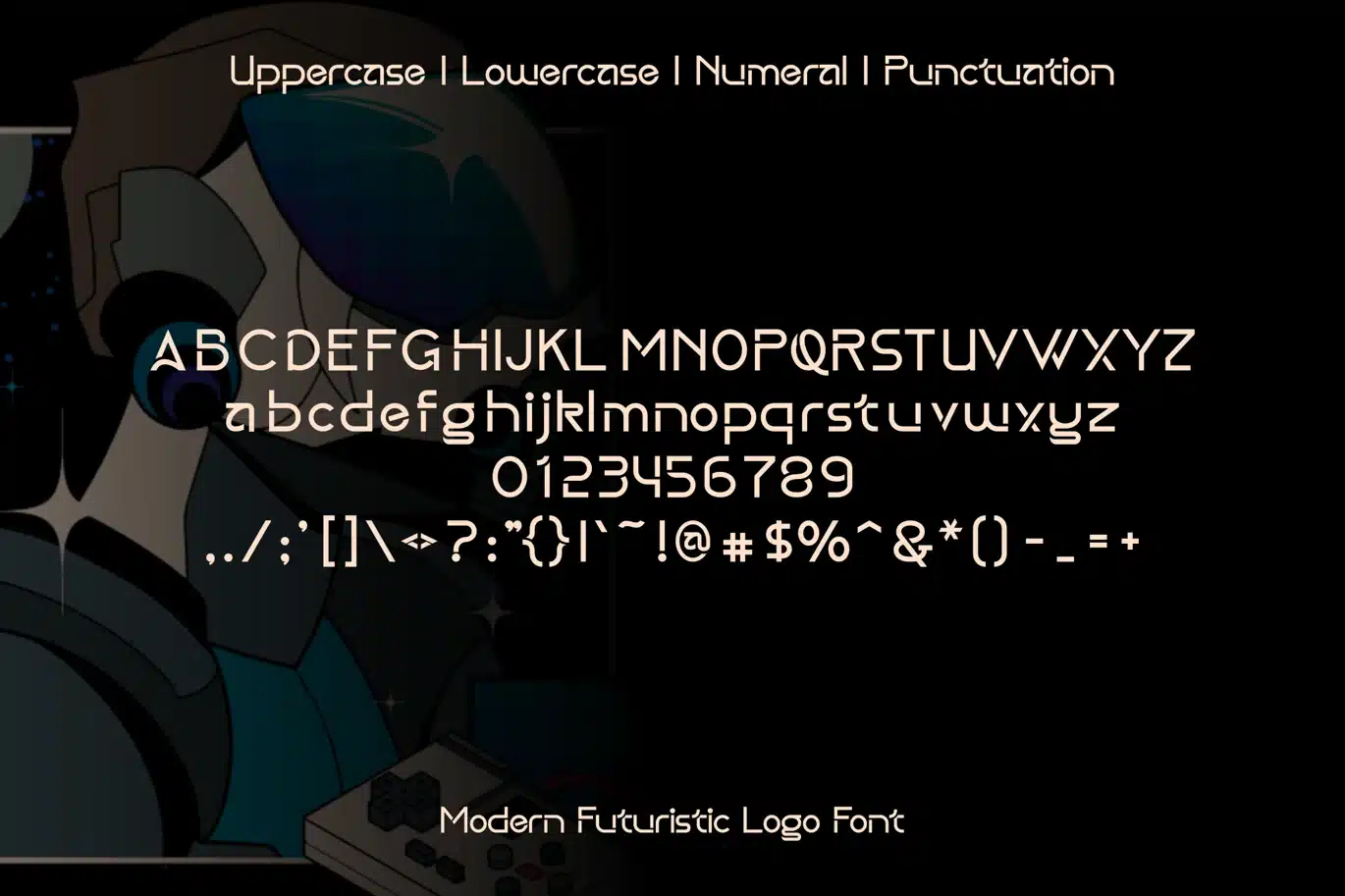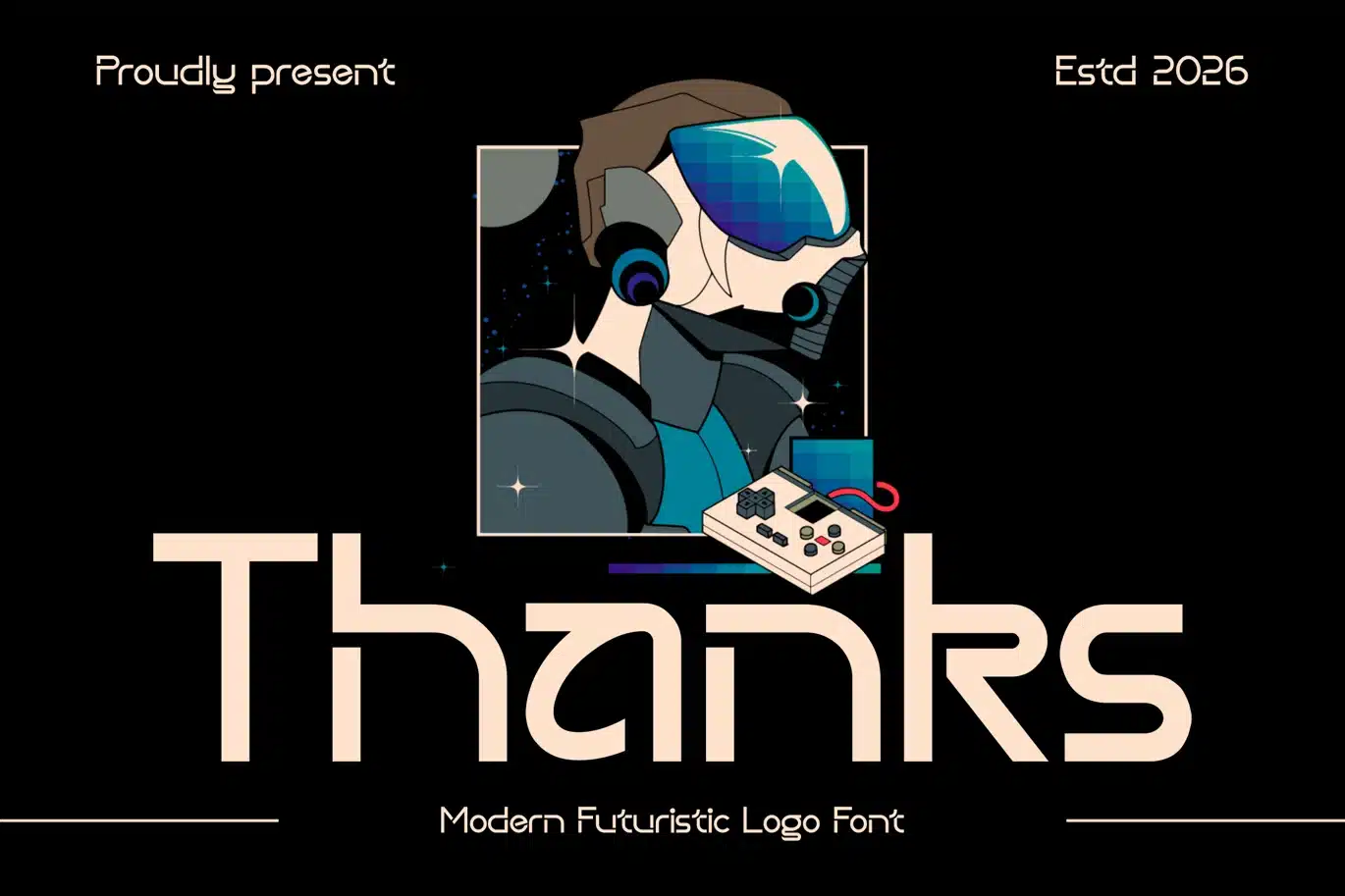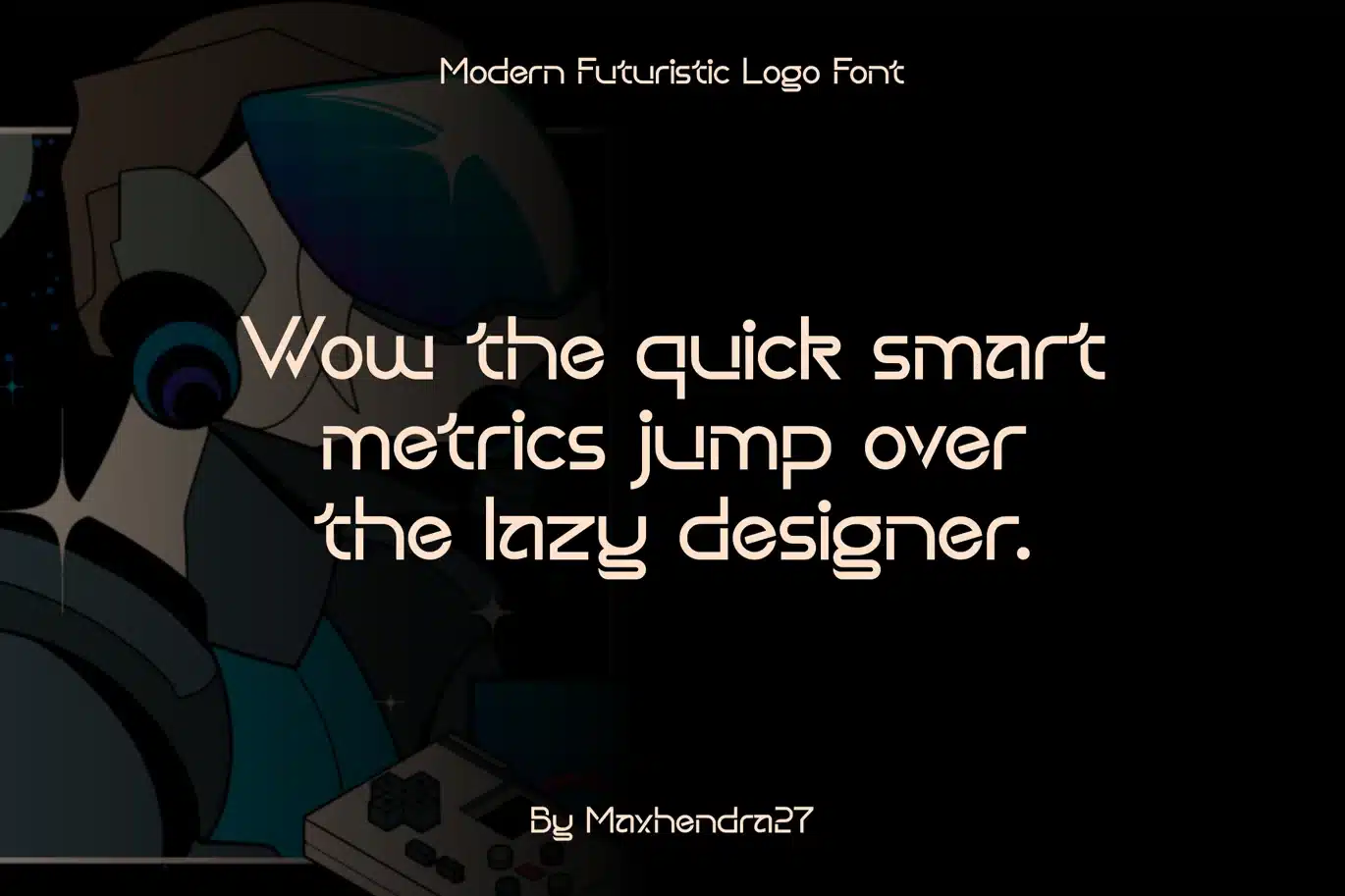
Amoxil – Modern Futuristic Logo Font
maxhendra27
Amoxil is a super thick typeface with more traditional letter shapes, making it perfect for creating (or recreating) the concise look of film poster production credits.
Feature :
- Uppercase Characters
- Lowercase Characters
- Punctuation & Numbers